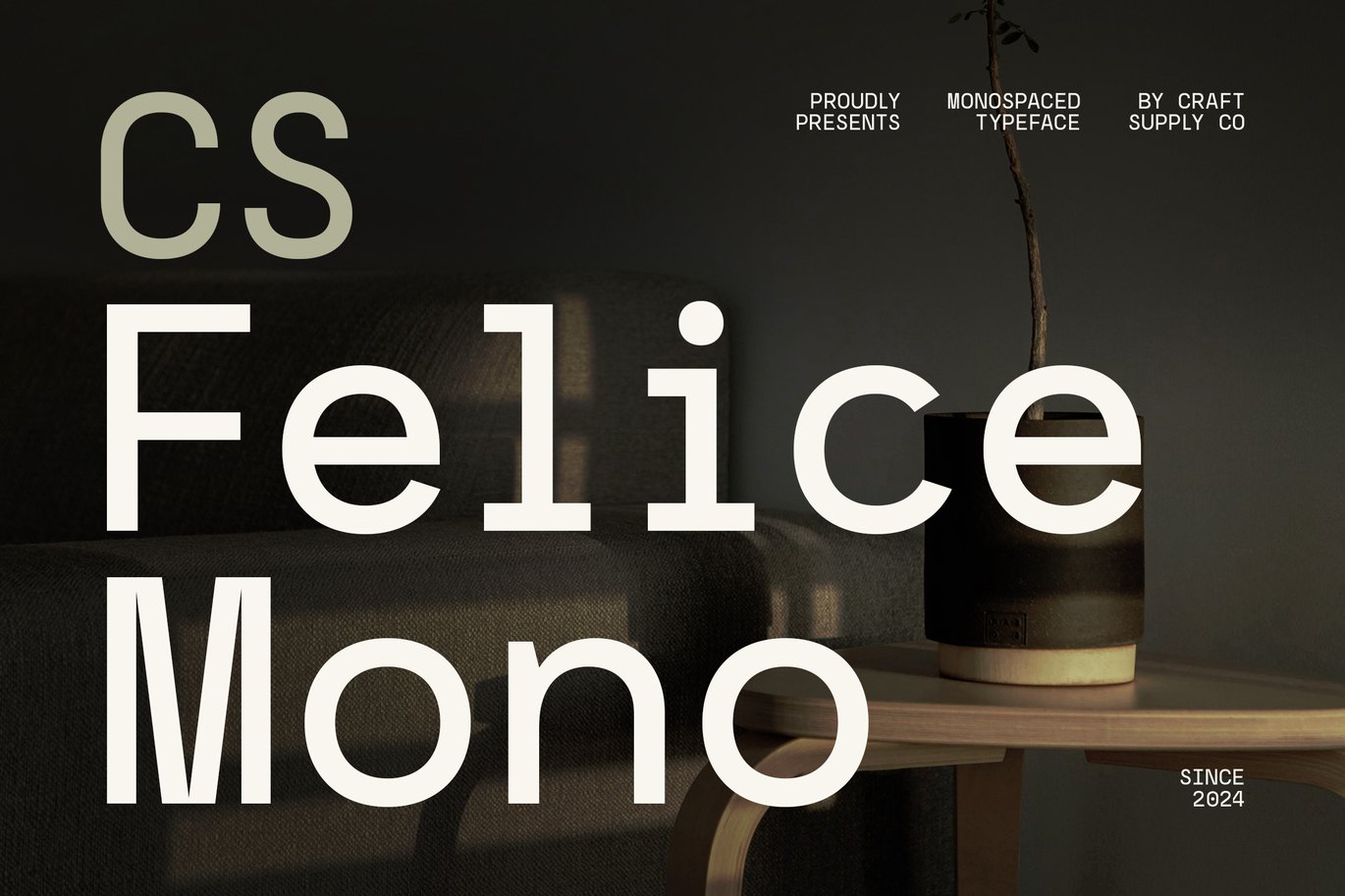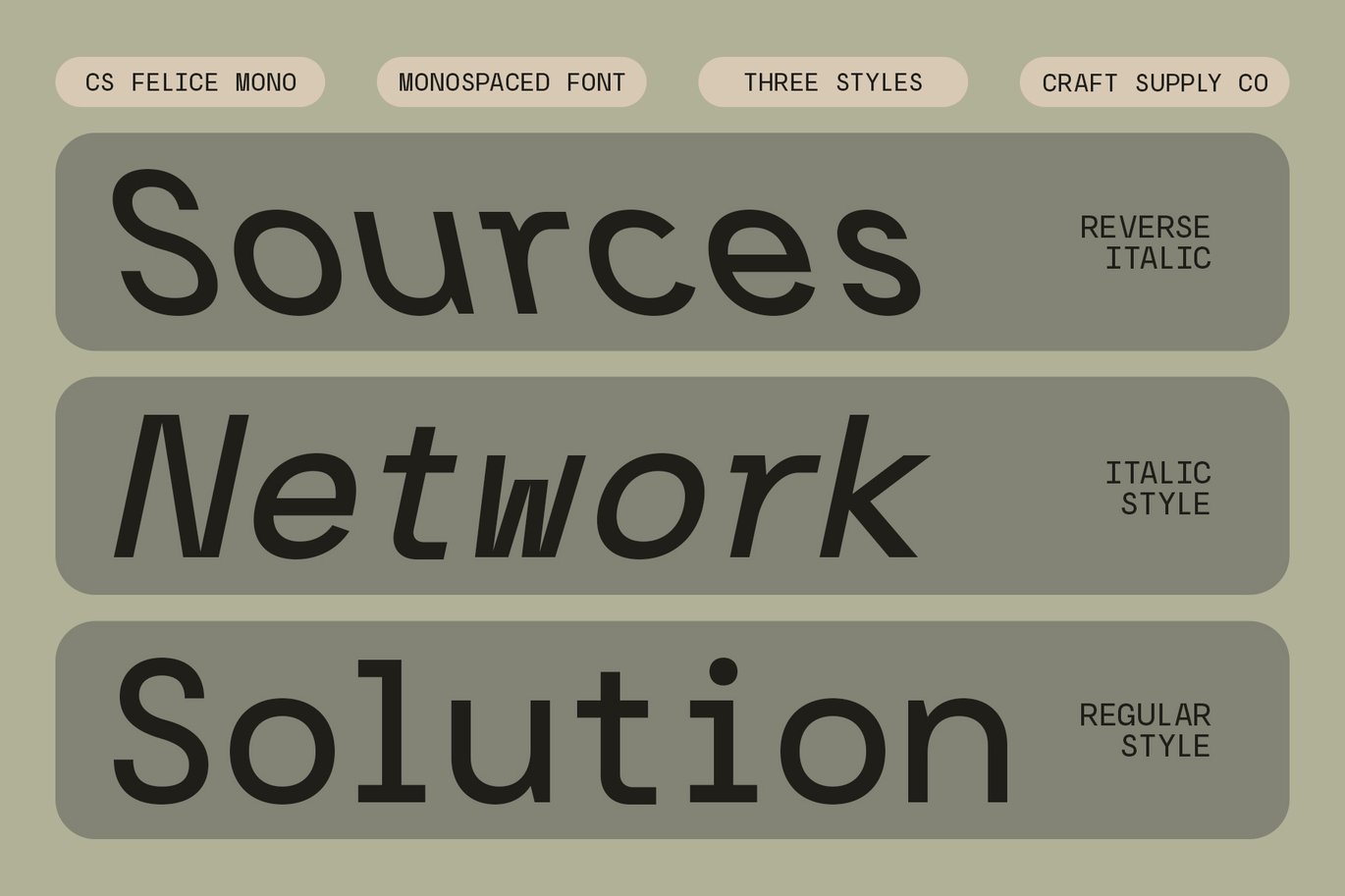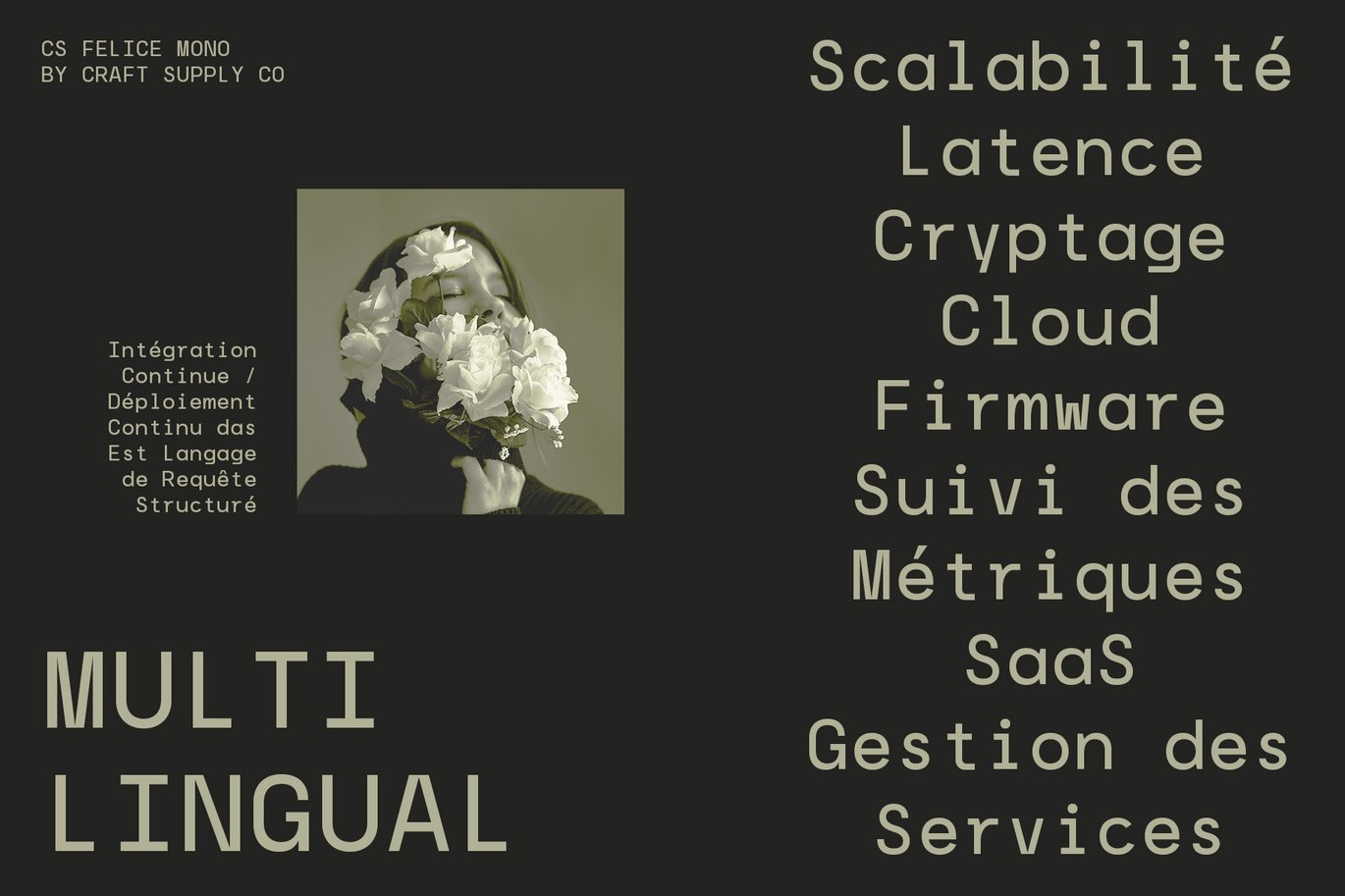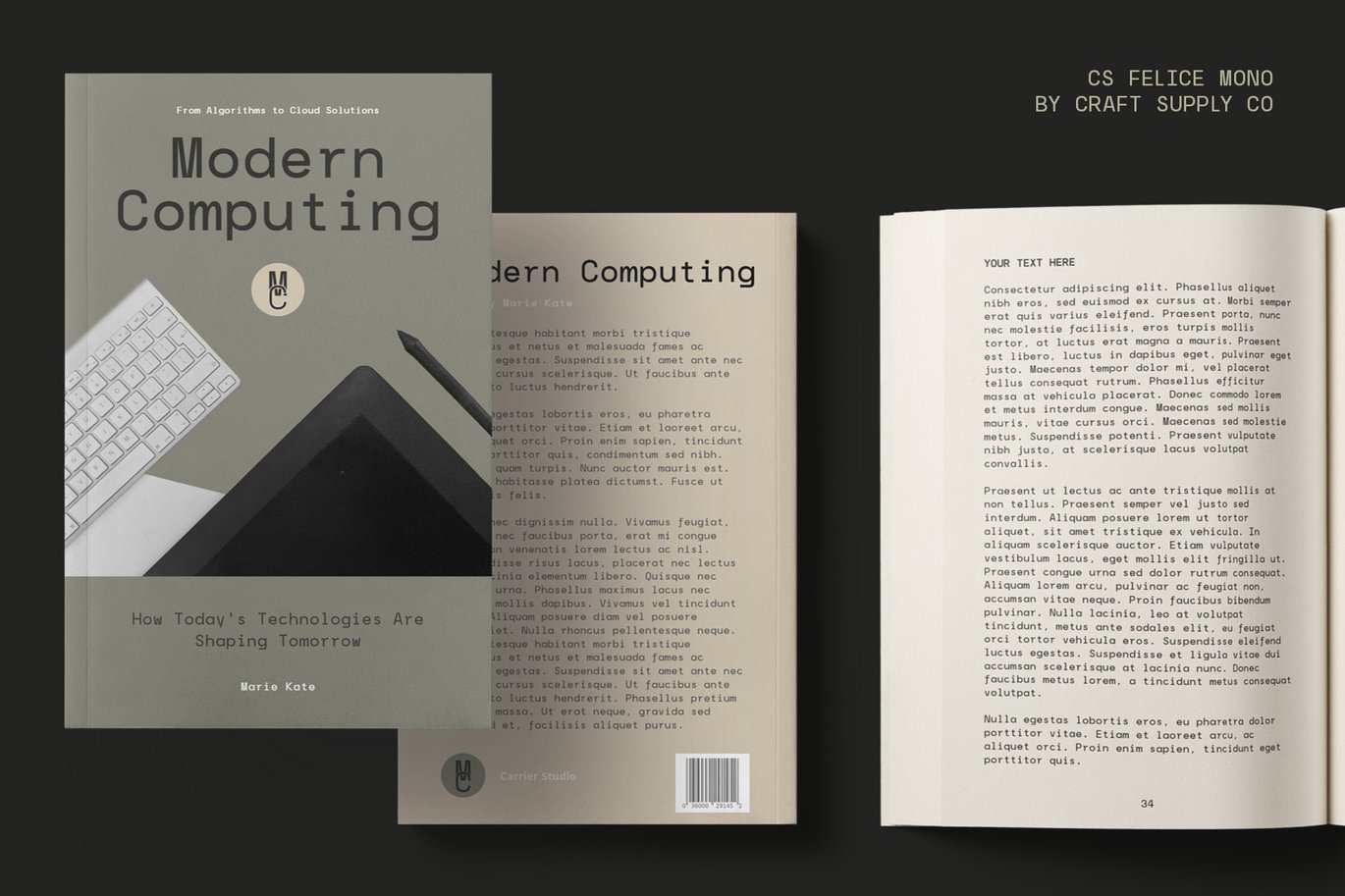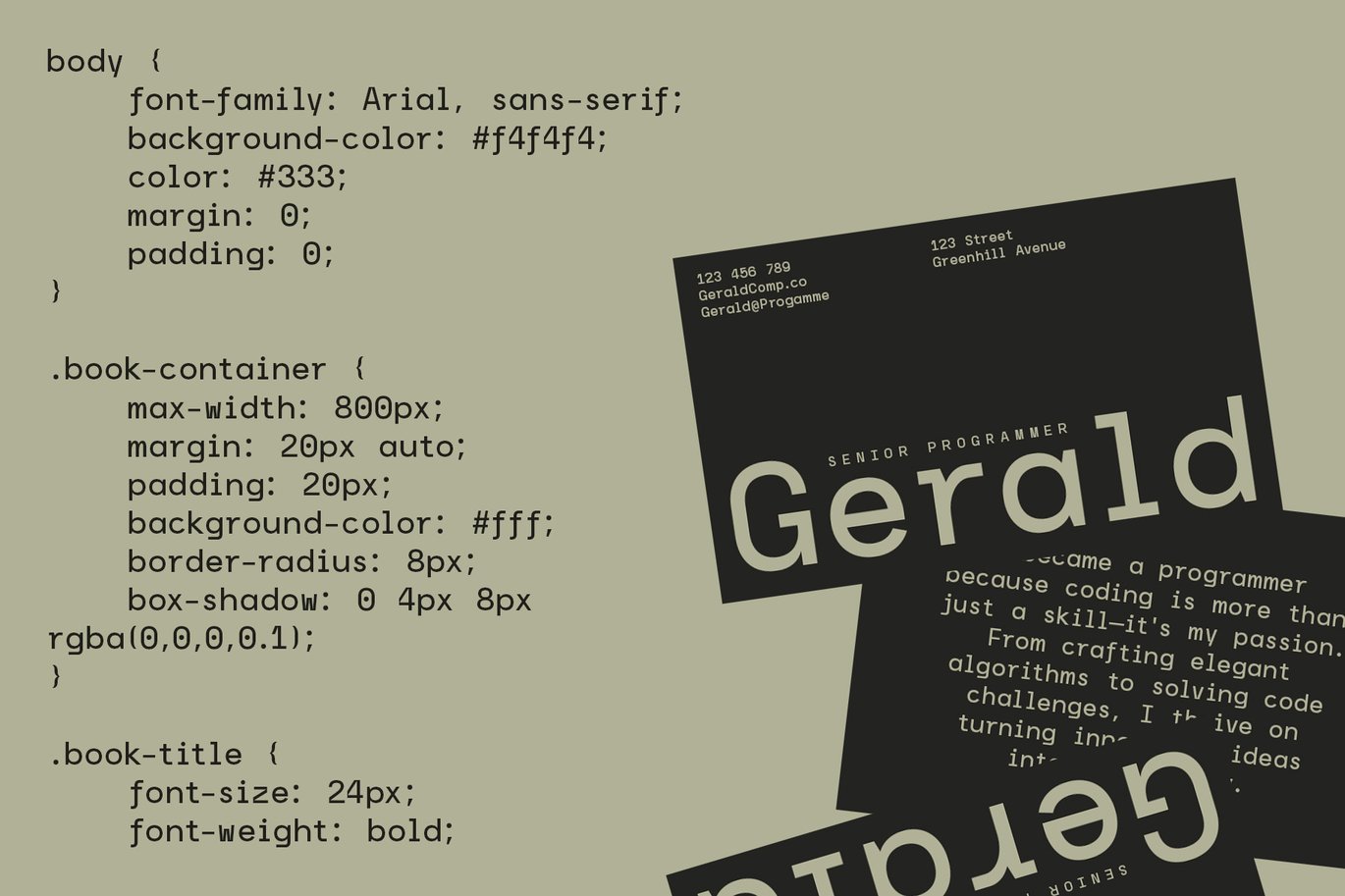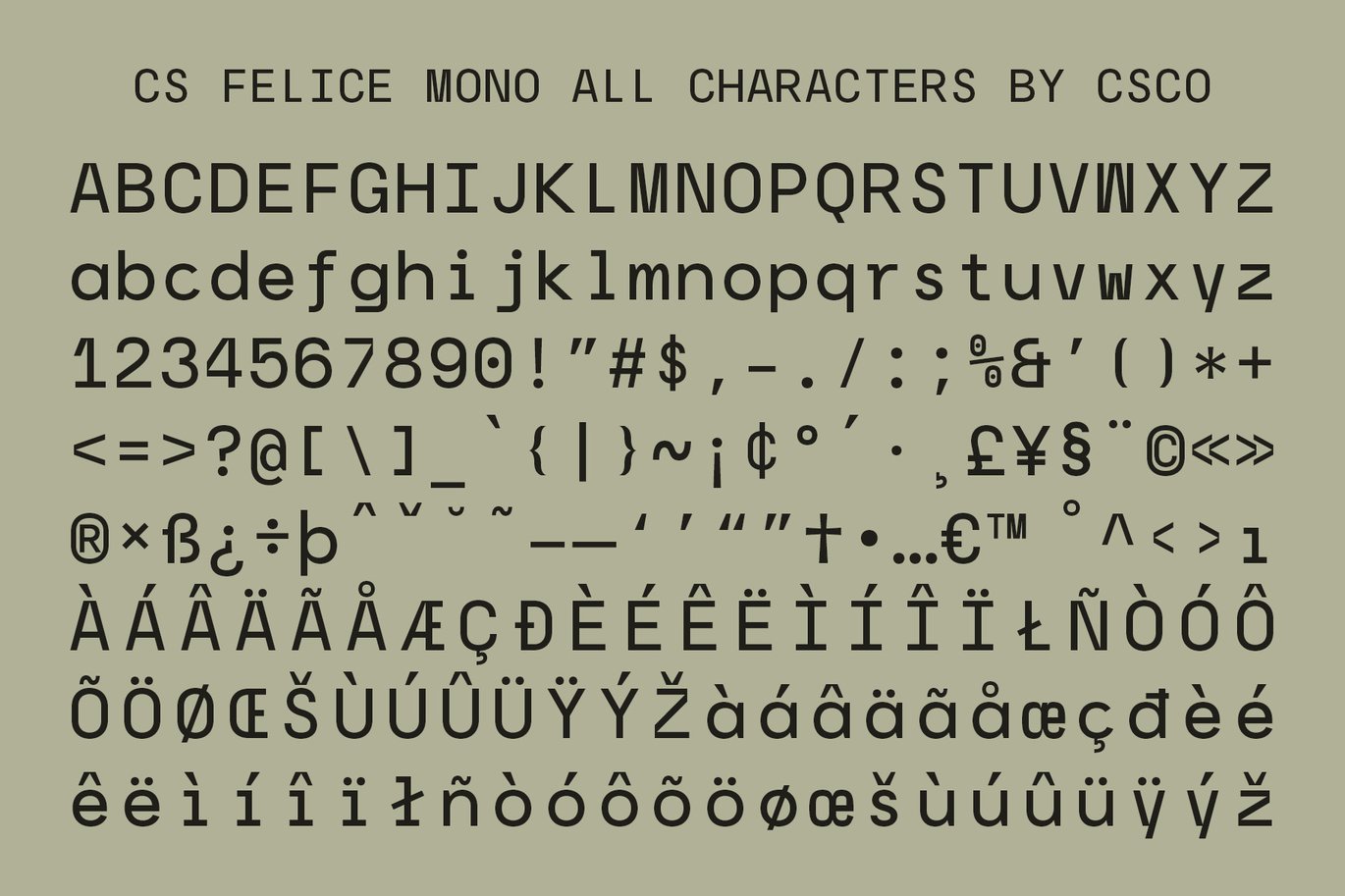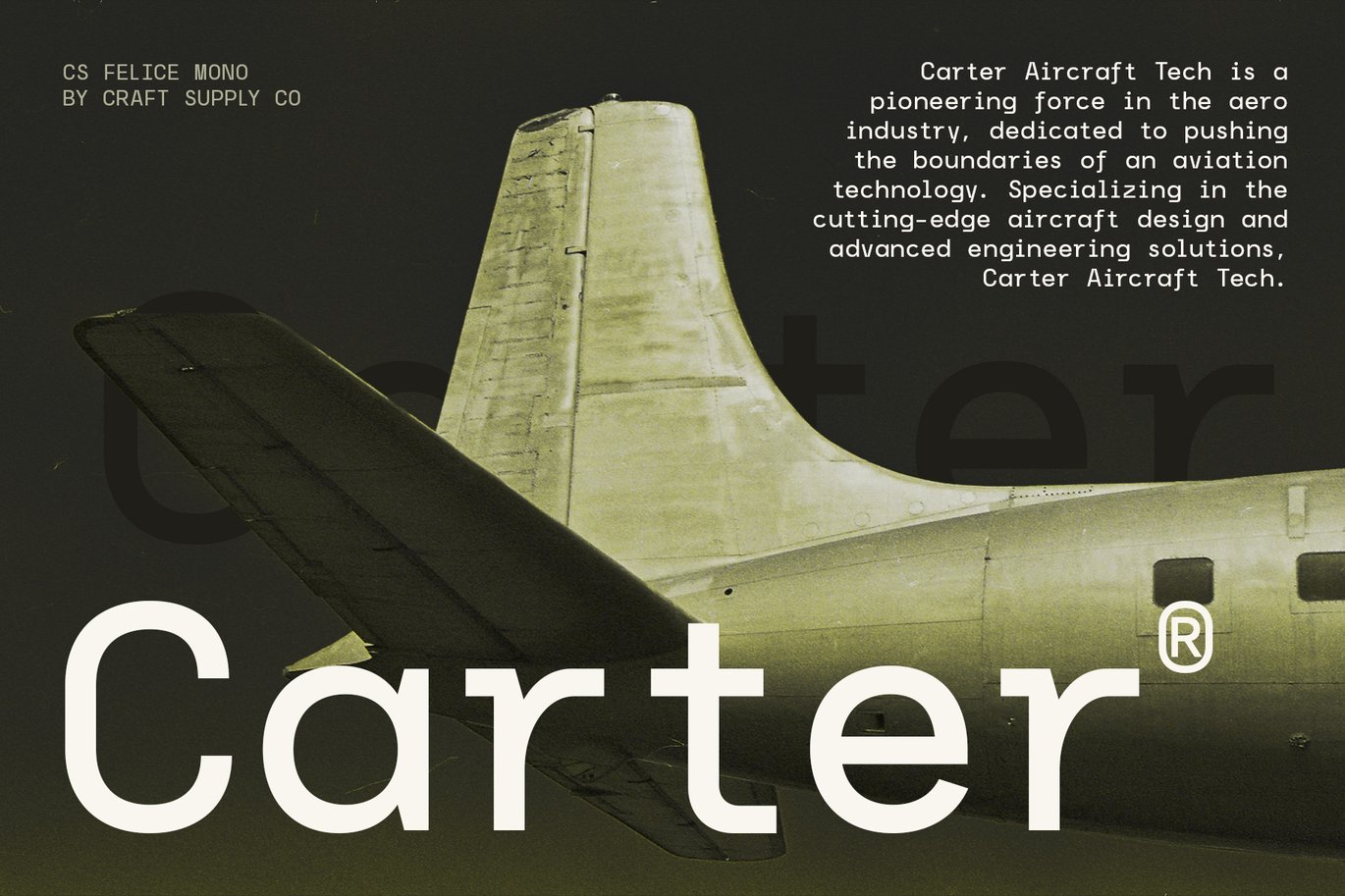
Felice Mono – Monospaced Font
CS Felice Mono – Monospaced Font: Precision and Clarity in Every Character
Consistent Spacing for Enhanced Readability
CS Felice Mono is a monospaced sans-serif font designed with characters of equal width, ensuring consistent spacing throughout the text. This uniformity facilitates precise alignment and readability, making it an excellent choice for coding, technical documentation, and data presentation. The monospaced structure is crucial for maintaining visual consistency and accuracy in text layout.
Clean and Contemporary Look
The sans-serif style of this monospaced font contributes to a clean and modern appearance. This minimalist design not only enhances readability but also ensures that the text remains sharp and professional. The absence of decorative elements allows the focus to remain on the content, providing a straightforward and efficient visual experience.
Ideal for Coding, Documentation, and Data
This monospaced font excels in applications where precise text alignment is essential. Whether used for programming, technical writing, or data visualization, this font delivers clarity and uniformity. Its combination of monospaced functionality and modern sans-serif style makes it a reliable choice for any project requiring exact text layout and a clean, professional look.
Versatile for Various Text Layout Needs
Whether you’re developing software, preparing data presentations, or creating technical content, this monospaced font offers a reliable and stylish solution. Its combination of modern sans-serif design and monospaced functionality ensures both visual appeal and practical effectiveness.